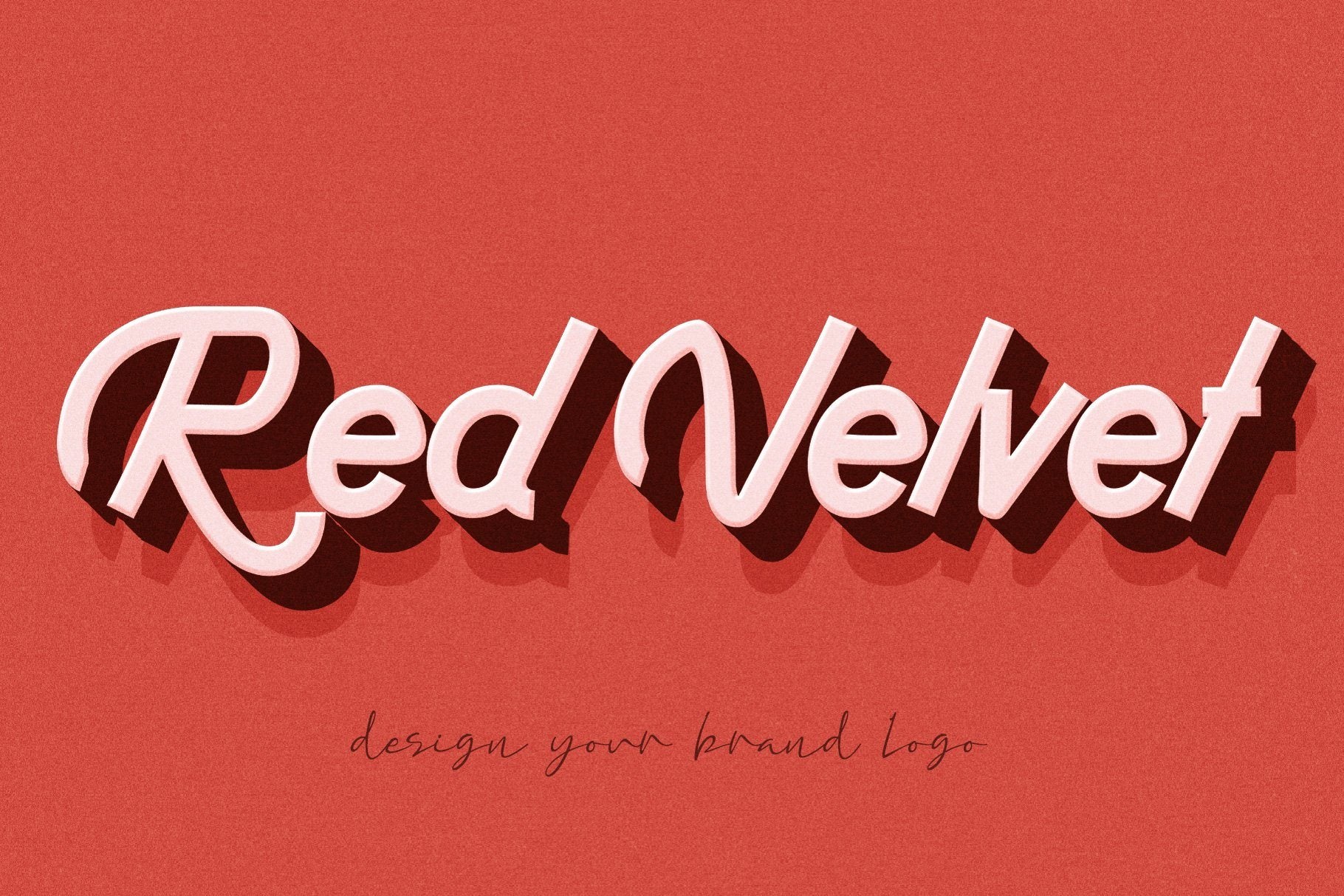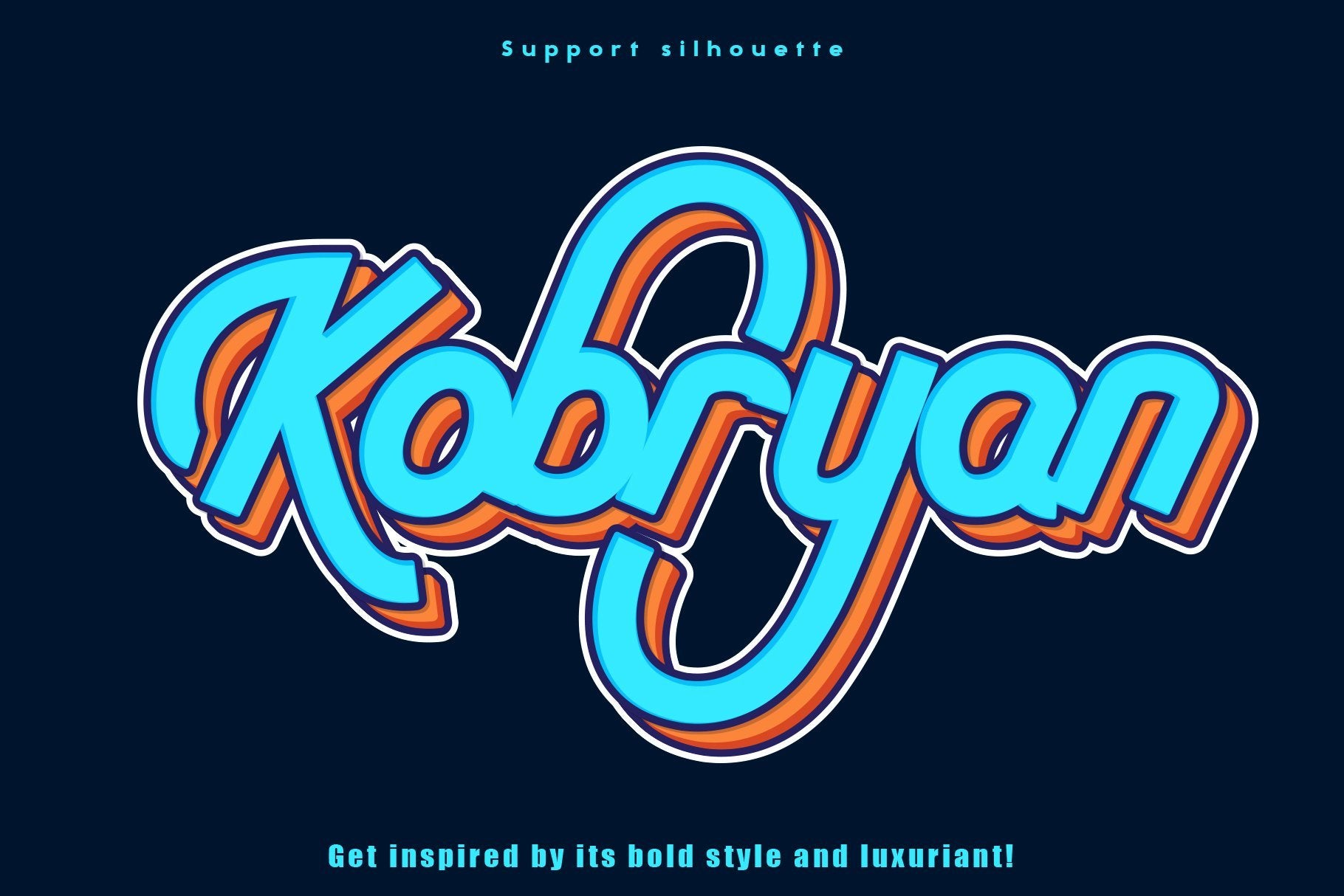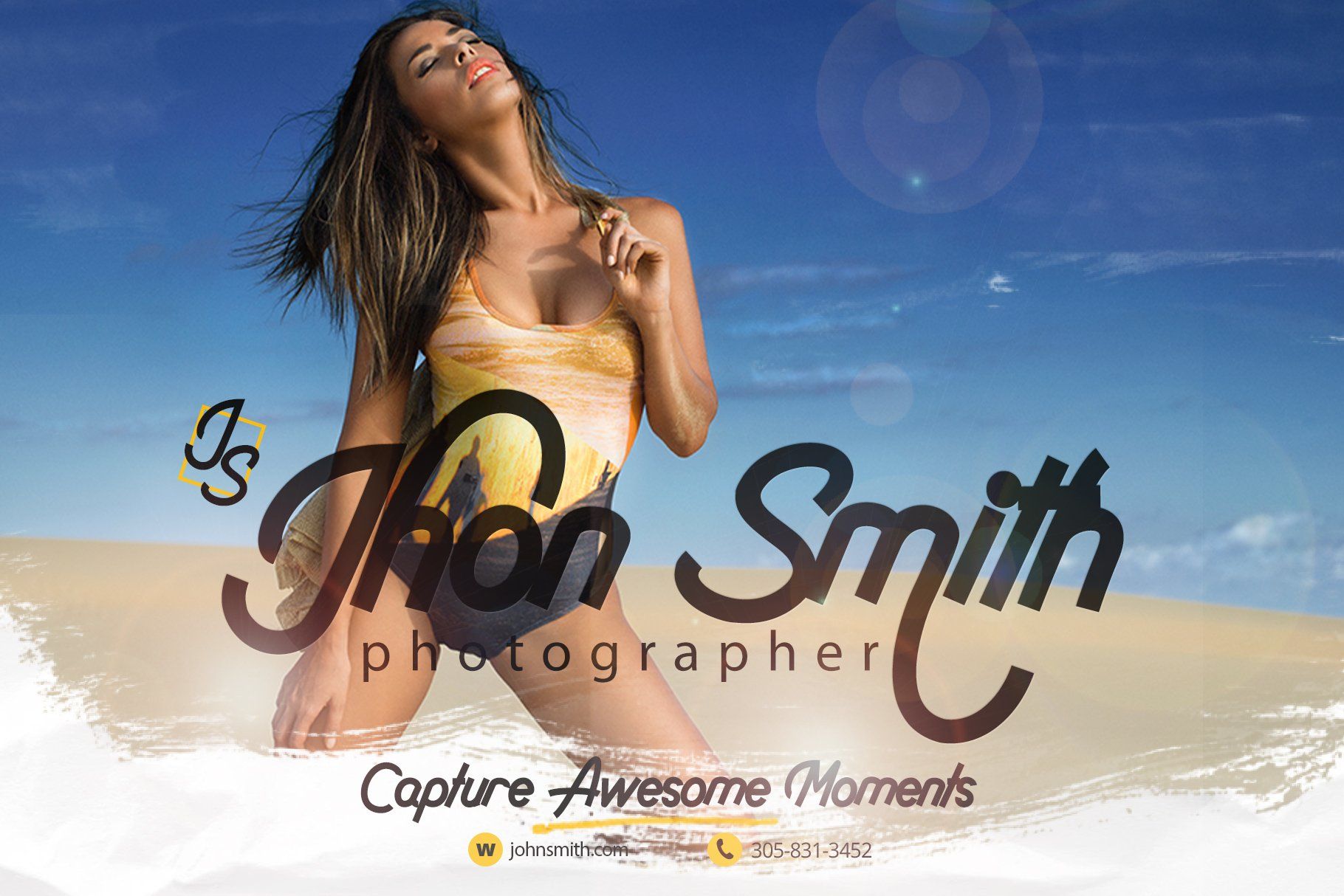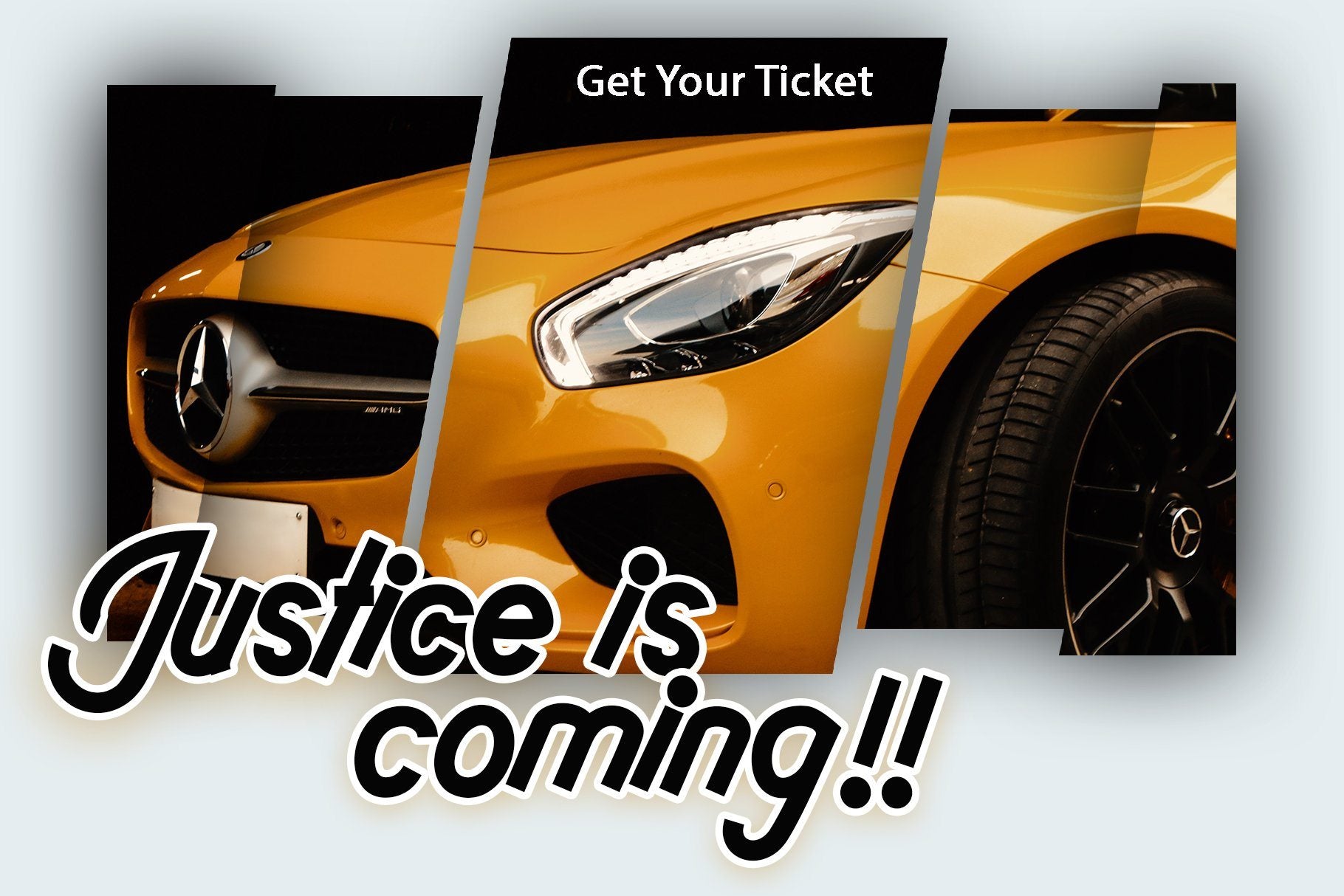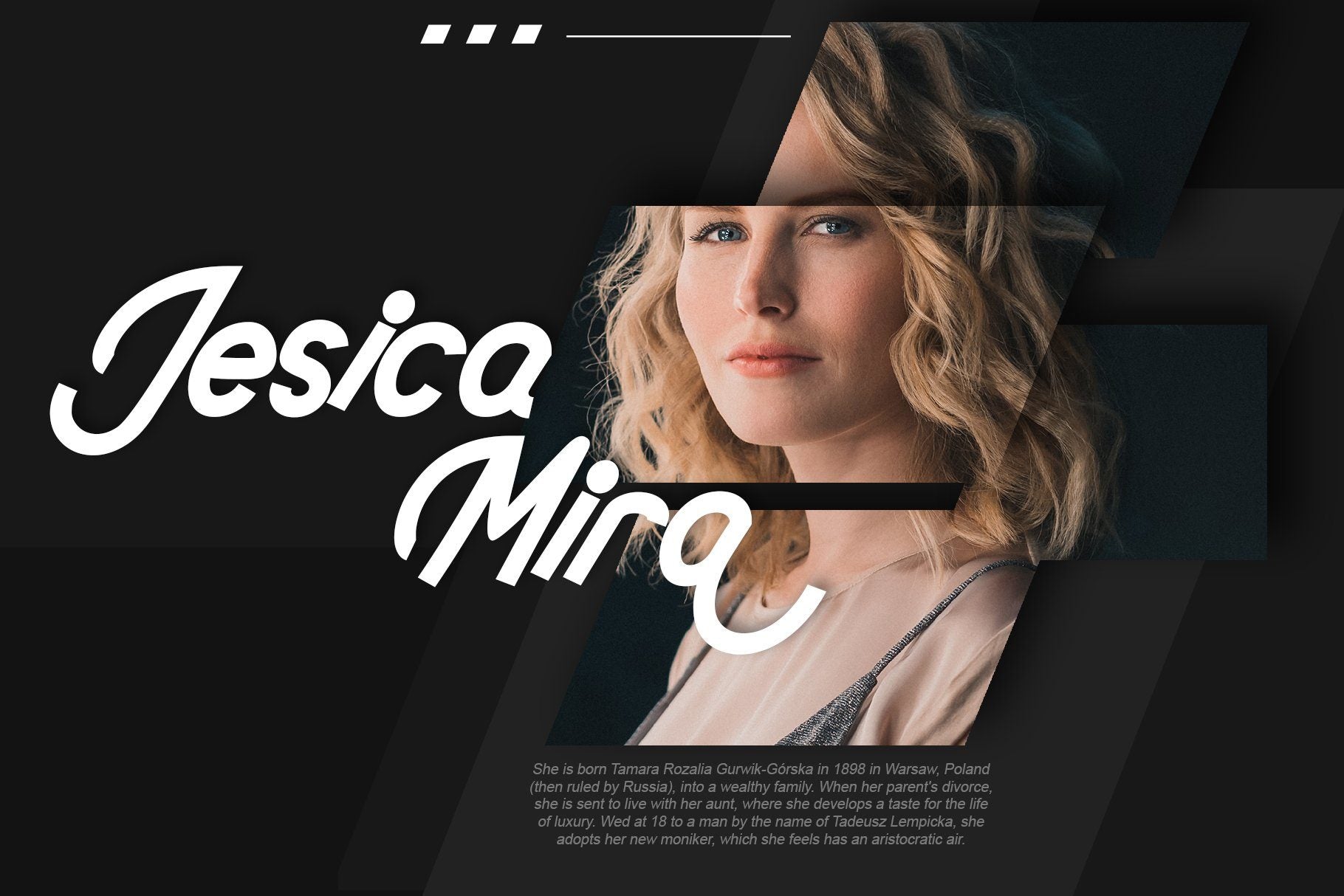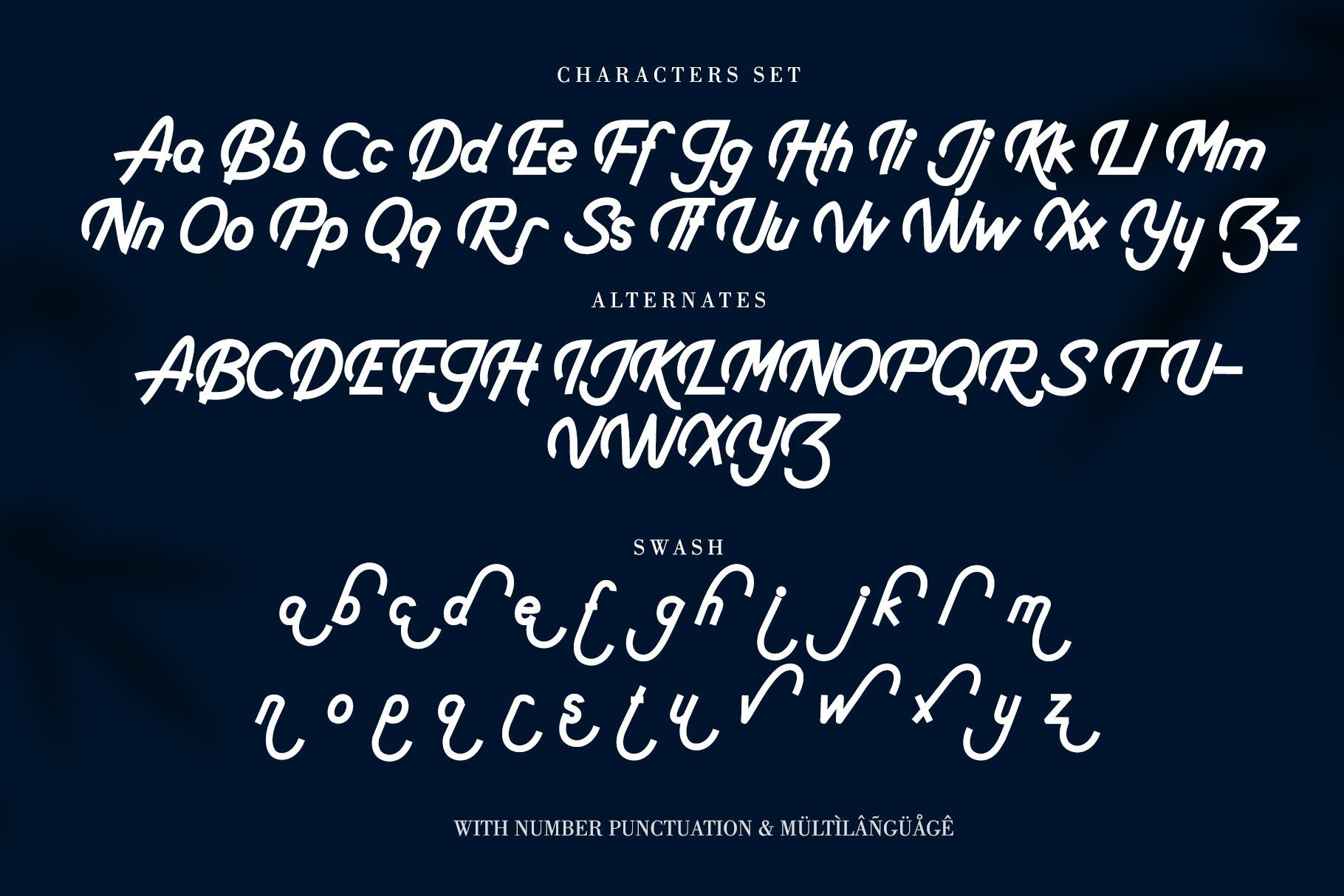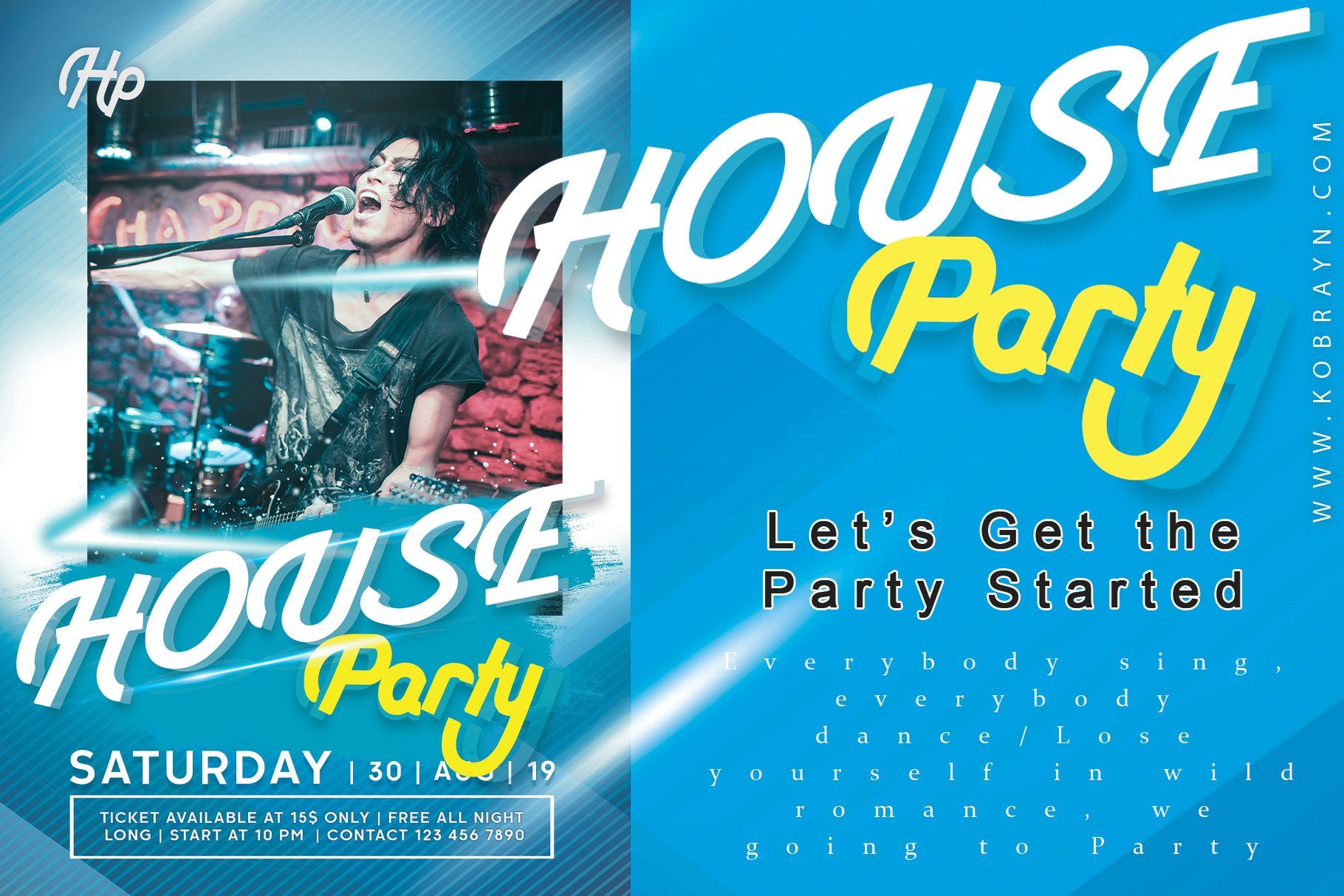
Kobryan
About Kobryan
Kobryan is a bold script typeface created by letterara, and is uniquely crafted to give your designs a monogram appeal. Get inspired by its bold style and luxuriant! What’s included: Kobryan (OTF/TTF/WOFF) Ligature and Swash Works both on Mac & PC Simple installations Accessible in the Adobe Illustrator, Adobe Photoshop, Adobe InDesign, CorelDraw, even work on Microsoft Word. Support silhouette Support multilingual; ä ö ü Ä Ö Ü ß ¿ ¡ To access the alternate glyphs, you need a program that supports OpenType features such as Adobe Illustrator CS, Adobe Photoshop CC, Adobe Indesign and CorelDraw. More information about how to access alternate glyphs, check out this link ( http://goo.gl/ZT7PqK ) To stay up to date for my latest job, follow me and let’s be friends because there will be many promos. Our other products : BEST SELLER MILEADILA BEAUTIFUL KISSES ANGELIN GAMOS HERTINA JENNIE ANTIKA AURORA BLACK PINK SIGNATURE California Street BESTOWENS FAMILY